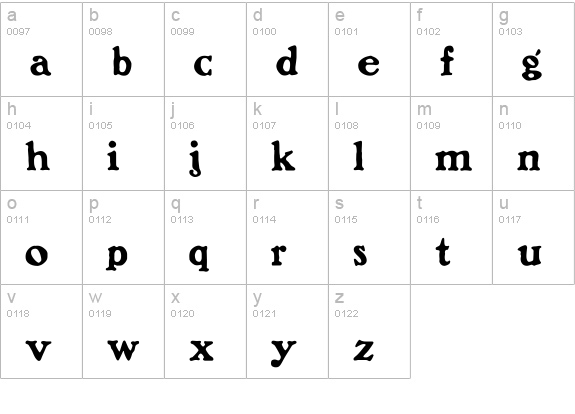
BenFranklin Font Details
BenFranklin is a classic and elegant serif font that exudes sophistication and timelessness. Its clean lines and balanced proportions make it perfect for a wide range of design projects, from branding to editorial design. The font's versatility allows it to be used for both headings and body text, adding a touch of refinement to any layout. What sets BenFranklin apart is not just its aesthetic appeal, but also the fact that it is available for free download at FontsMarket.com. This means that you can easily access this high-quality font without any cost, making it a valuable addition to your font collection. Whether you're a seasoned designer or just starting out, BenFranklin is a must-have font that will elevate your designs to the next level.